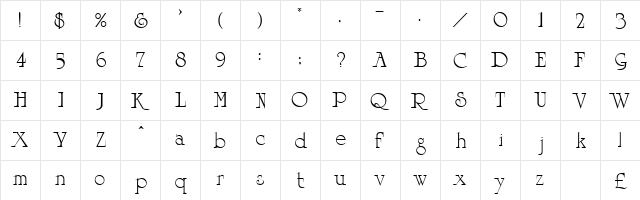
Sagittal Normal Font Preview
Sagittal Normal
Design Context for Sagittal Typeface
Sagittal offers clean, dependable letterforms without strong stylistic allegiance, making it a practical choice for designers who need flexibility.